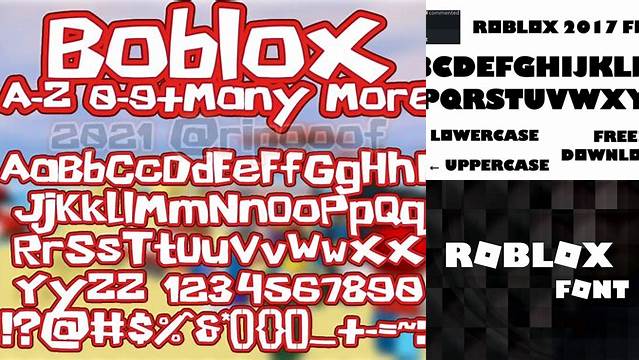
Best Roblox Fonts: Free Downloads To Elevate Your Game
Hey guys! Are you looking to spice up your Roblox game with some awesome fonts? You've come to the right place! Choosing the right font can dramatically improve the look and feel of your game, making it more engaging and professional. In this article, we're going to dive deep into the best Roblox fonts you can download for free. We'll cover everything from classic fonts that give your game a retro vibe to modern fonts that make it look cutting-edge. So, let's get started and find the perfect font to make your game stand out!
Why Fonts Matter in Roblox
Fonts play a crucial role in the overall user experience of your Roblox game. Think about it – the text is how you communicate important information, from instructions and dialogue to menus and scores. If your font is hard to read or doesn’t match the style of your game, players might get frustrated or even lose interest. A well-chosen font, on the other hand, can enhance the atmosphere, improve readability, and make your game more immersive.
Consider how different fonts can evoke different feelings. A bold, blocky font might be perfect for an action-packed adventure game, while a softer, more whimsical font might suit a cozy simulation game. The right font can reinforce the theme and mood of your game, creating a cohesive and engaging experience for your players. Plus, a unique and stylish font can help your game stand out in the crowded Roblox marketplace. Imagine a horror game using a spooky, hand-lettered font – it instantly sets the tone and immerses players in the eerie atmosphere. Similarly, a futuristic sci-fi game might benefit from a sleek, sans-serif font that conveys a sense of technology and innovation. Selecting the right fonts is therefore not just about aesthetics; it's about enhancing gameplay and creating a memorable experience. Always remember, fonts are not just text; they're a design element that contributes significantly to your game's overall appeal.
Furthermore, the impact of fonts extends to UI/UX (User Interface/User Experience) design within your game. Clear, legible fonts ensure that players can easily navigate menus, understand objectives, and interact with the game's interface. A cluttered or hard-to-read font can lead to confusion and frustration, detracting from the overall enjoyment. By choosing fonts that are both visually appealing and functionally effective, you can create a user-friendly experience that keeps players engaged. Think about the consistency of your font choices as well. Using a consistent font style throughout your game creates a sense of professionalism and polish. Mixing too many different fonts can make your game look chaotic and unprofessional. So, stick to a few carefully selected fonts that complement each other and enhance the overall design.
- 1001 Fonts: With thousands of free fonts to choose from, 1001 Fonts is a great resource for finding the perfect typeface for your Roblox project. The site is well-organized, with fonts categorized by style, theme, and popularity. You can also filter your search by license type to ensure you're only looking at fonts that are free for commercial use.
- Creative Market (Free Goods Section): Creative Market is a marketplace for design assets, but they also offer a section of free goods that includes fonts. The selection changes regularly, so it's worth checking back often to see what's new. While not all fonts on Creative Market are free, the freebies section can be a goldmine for finding unique and stylish typefaces.
When browsing these sites, remember to pay attention to the font license. Some fonts are free for personal use but require a commercial license if you plan to use them in a game that you're selling or monetizing. Always double-check the license to avoid any legal issues down the road. Also, consider downloading font management software to keep your font library organized. Programs like FontBase or NexusFont can help you preview fonts, install and uninstall them easily, and organize them into collections. This makes it much easier to find the right font for your project without having to sift through hundreds of files. Furthermore, explore font pairings. Sometimes, using two or three complementary fonts can add visual interest and hierarchy to your game's text. For example, you might use a bold font for headings and a more readable font for body text. Experimenting with different font combinations can help you achieve a polished and professional look.
Top Roblox Fonts for Different Game Genres
The best font for your Roblox game really depends on the genre and style you're going for. Let's break down some popular game genres and suggest top Roblox fonts that fit well:
Adventure Games
For adventure games, you want fonts that evoke a sense of excitement, mystery, and maybe even danger. Think about fonts that look like they belong on an old map or a treasure chest. Here are a few great options:
- Trajan Pro: This classic serif font is inspired by Roman inscriptions and has a timeless, adventurous feel. It's perfect for titles and headings.
- Pirata One: As the name suggests, Pirata One has a swashbuckling, pirate-themed vibe. It's a bold, decorative font that works well for game logos and titles.
- VTC Letterer Pro: This font has a handwritten, vintage feel that's perfect for creating an immersive, old-world atmosphere. It's great for dialogue and narrative text.
When choosing fonts for adventure games, consider the era and setting of your game. A historical adventure game might benefit from a font that looks like it's been plucked from an old book, while a fantasy adventure game might call for a more whimsical or mystical typeface. The goal is to choose fonts that complement the overall theme and enhance the sense of adventure.
Horror Games
Horror games need fonts that can create a sense of unease, fear, and suspense. Think about fonts that are distressed, creepy, or look like they've been scrawled in blood. Here are some chilling choices:
- Creepster: This font is aptly named – it's a creepy, dripping font that's perfect for horror game titles and posters.
- Nosferatum: Inspired by the classic vampire film, Nosferatum is a gothic-style font with sharp, angular lines that evoke a sense of dread.
- Amatic SC: While Amatic SC is generally a friendly font, it can take on a sinister feel when used in the right context. Its condensed, slightly uneven letterforms can create a sense of urgency and unease.
For horror games, the font choice is crucial in setting the tone. A font that looks too clean or friendly can undermine the scary atmosphere. Look for fonts with jagged edges, uneven lines, or a distressed appearance. Using a font that looks like it's been written by a crazed person can add a layer of psychological horror to your game. Also, consider using color to enhance the creepiness. A blood-red font on a dark background can be incredibly effective in creating a sense of dread.
Sci-Fi Games
Sci-fi games need fonts that convey a sense of technology, innovation, and the future. Think about fonts that are sleek, modern, and even a little futuristic. Here are some stellar options:
- Orbitron: Orbitron is a clean, geometric sans-serif font that looks like it belongs on a spaceship control panel. It's perfect for titles, UI elements, and futuristic text.
- Bebas Neue: Bebas Neue is a tall, narrow sans-serif font that has a sleek and modern feel. It's great for headings and display text.
- Exo: Exo is a geometric sans-serif font with a slightly futuristic vibe. It's versatile enough to be used for both titles and body text.
When selecting fonts for sci-fi games, consider the specific subgenre. A hard sci-fi game might call for a font that looks highly technical and functional, while a space opera might benefit from a more stylized and decorative typeface. The key is to choose fonts that reinforce the futuristic setting and enhance the sense of technological advancement. Also, think about using fonts with monospaced characters, which can evoke the look of computer terminals and data displays. This can add a layer of authenticity to your game's sci-fi aesthetic.
Simulation Games
Simulation games often need fonts that are clear, readable, and functional. Think about fonts that look like they belong in a user interface or a real-world setting. Here are some practical choices:
- Roboto: Roboto is a modern sans-serif font that's designed for readability. It's clean, versatile, and works well in a variety of contexts.
- Open Sans: Open Sans is another highly readable sans-serif font that's perfect for body text and UI elements. It's clean, friendly, and easy on the eyes.
- Lato: Lato is a sans-serif font with a slightly warmer feel than Roboto or Open Sans. It's still highly readable but has a more humanistic touch.
For simulation games, the most important consideration is readability. Players need to be able to easily read instructions, menus, and other text elements. Avoid fonts that are too decorative or stylized, as they can be difficult to read at small sizes. Choose fonts that are clear, simple, and optimized for on-screen display. Also, consider the tone of your simulation game. A serious simulation game might benefit from a more formal font, while a casual simulation game might call for a friendlier typeface. The goal is to choose fonts that are both functional and appropriate for the game's theme.
How to Install and Use Fonts in Roblox
Okay, you've found some awesome fonts – now what? Here's how to install them on your computer and use them in Roblox:
- Download the Font: First, download the font file from the website where you found it. Fonts usually come in ZIP files, so you'll need to extract the files.
- Install the Font: Once you've extracted the files, you'll typically find one or more .ttf (TrueType Font) or .otf (OpenType Font) files. To install the font on Windows, right-click on the file and select “Install.” On macOS, double-click the file and click “Install Font” in the Font Book app.
- Use the Font in Roblox: Now that the font is installed on your system, you can use it in Roblox Studio. To do this, you'll need to use a TextLabel or TextBox object in your game's UI. Select the object, and in the Properties window, you'll find a property called “Font.” Click the dropdown menu, and you should see your newly installed font listed. Select it, and your text will now display in that font.
It's that simple! However, there are a few things to keep in mind when using fonts in Roblox. First, not all fonts are created equal when it comes to performance. Some fonts are more complex and can slow down your game if you use them too heavily. If you're experiencing performance issues, try using a simpler font or reducing the number of text elements in your game.
Second, consider the size and weight of your font. A font that looks great at a large size might be hard to read at a smaller size. Make sure to test your font at different sizes to ensure it's legible. Similarly, the weight of the font (e.g., bold, regular, light) can affect readability. A font that's too thin might be hard to see, while a font that's too bold can look cluttered.
Finally, be mindful of font licensing when using fonts in Roblox. As we mentioned earlier, some fonts are free for personal use but require a commercial license if you plan to monetize your game. Always double-check the license to avoid any legal issues. Also, remember that Roblox Studio has a built-in font selection, but using custom fonts can give your game a unique look and feel. However, using too many different fonts can make your game look unprofessional. Stick to a limited palette of fonts (two or three is usually sufficient) to maintain a consistent and polished look. Furthermore, consider using font effects, such as outlines or shadows, to enhance readability and visual appeal. These effects can make your text stand out against busy backgrounds and add a layer of polish to your UI.
Tips for Choosing the Right Roblox Font
Choosing the perfect font for your Roblox game can feel overwhelming, but don't worry – here are some tips to help you make the right choice:
- Consider Your Game's Genre and Style: As we discussed earlier, the font should match the genre and style of your game. A horror game needs a different font than a simulation game. Think about the overall mood and theme you're trying to create, and choose a font that reinforces that.
- Prioritize Readability: No matter how stylish a font is, it's useless if players can't read it. Make sure your font is clear and legible, especially for important text like instructions and dialogue. Test your font at different sizes and in different contexts to ensure it's readable.
- Limit Your Font Choices: Using too many different fonts can make your game look cluttered and unprofessional. Stick to a limited palette of fonts (two or three is usually a good rule of thumb) to maintain a consistent and polished look.
- Test Your Font in Game: What looks good in a font preview might not look as good in your game. Always test your font in the actual game environment to see how it looks in context. Pay attention to how it interacts with the background, other UI elements, and the overall visual style of your game.
- Think About Font Pairings: Sometimes, using two or three complementary fonts can add visual interest and hierarchy to your game's text. For example, you might use a bold font for headings and a more readable font for body text. Experiment with different font combinations to see what works best for your game.
Remember, the font is just one element of your game's overall design, but it's an important one. By choosing the right font, you can enhance the atmosphere, improve readability, and make your game more engaging for players. Don't be afraid to experiment and try different fonts until you find the perfect fit. Also, feedback from other developers can be invaluable when choosing fonts. Share screenshots or videos of your game with other developers and ask for their opinions on your font choices. They may notice things that you haven't considered and offer valuable suggestions. Furthermore, consider cultural and linguistic factors when choosing fonts, especially if your game targets a global audience. Some fonts may not support certain character sets or may not be appropriate for certain languages or cultures. If your game is translated into multiple languages, make sure your font choices work well in all of them.
Choosing the best Roblox fonts can really make a difference in how your game looks and feels. By considering your game's genre, prioritizing readability, and using the tips we've discussed, you can find the perfect fonts to enhance your game and engage your players. So go ahead, explore the world of free fonts and create a Roblox game that stands out from the crowd! Happy developing, guys!